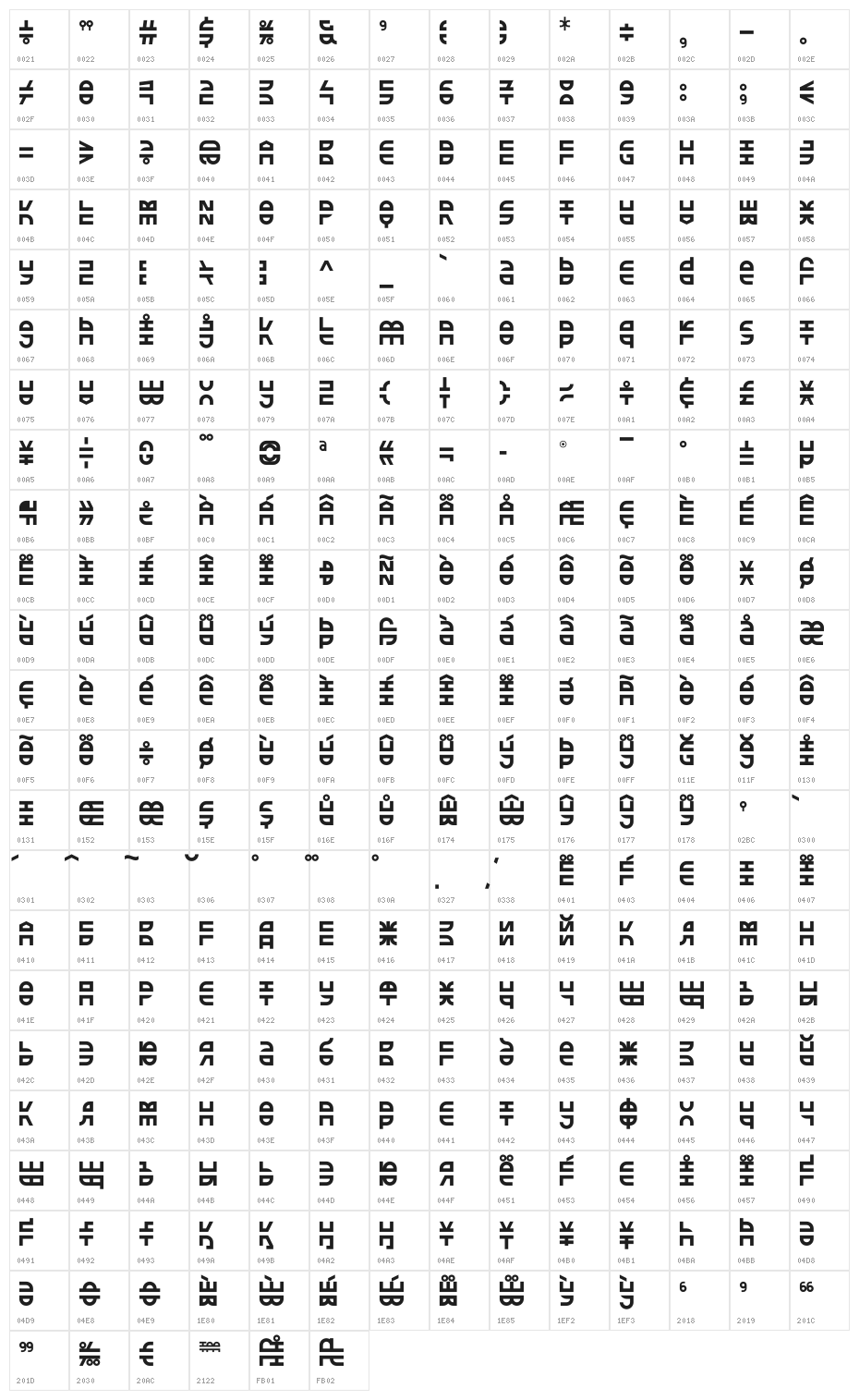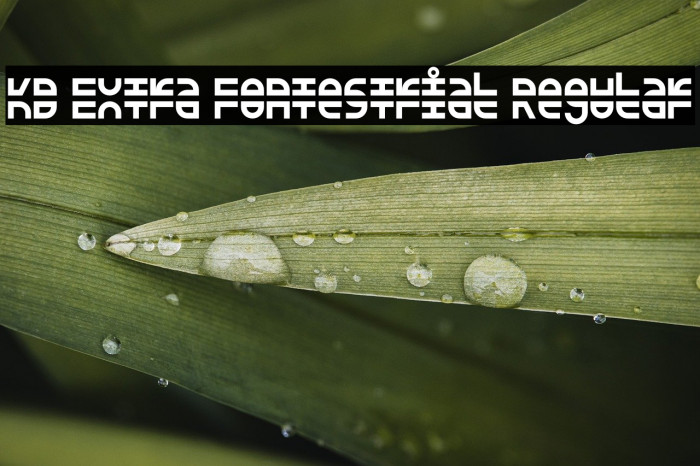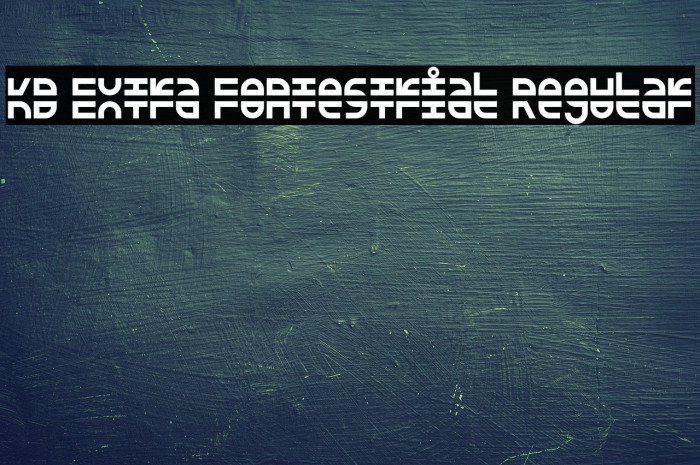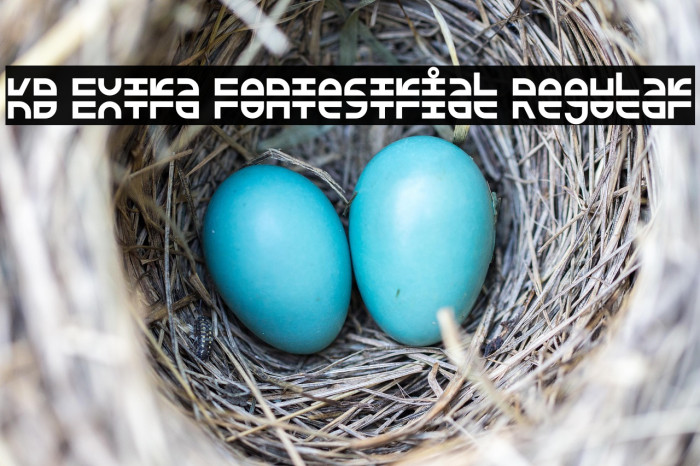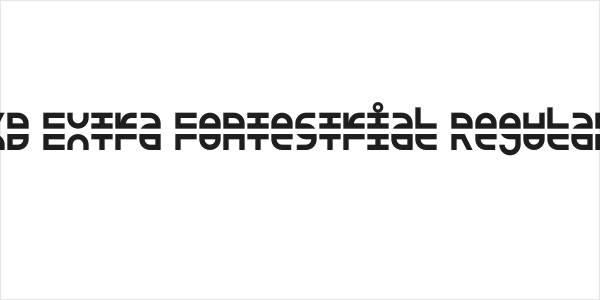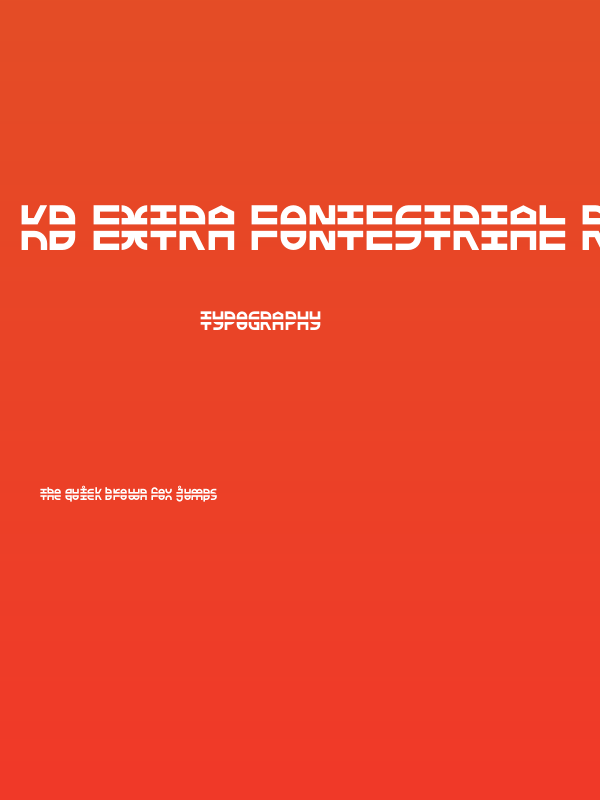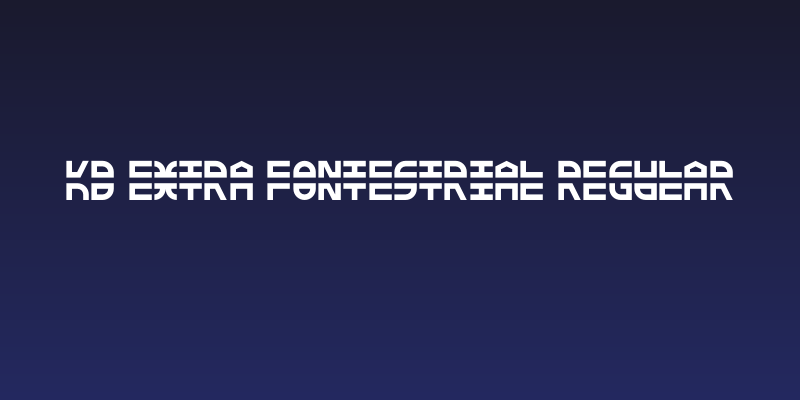
KD Extra Fontestrial Regular Font
KD Extra Fontestrial Regular Description
This font features a futuristic and geometric design, characterized by its bold and blocky letterforms. The characters are constructed with a combination of straight lines and curves, creating a unique and modern appearance. The uppercase and lowercase letters maintain a consistent style, with some letters incorporating circular elements that add to the font's distinctiveness. The numerals and special characters follow the same design principles, ensuring uniformity across all glyphs. This font's style is ideal for projects that require a contemporary and edgy look.